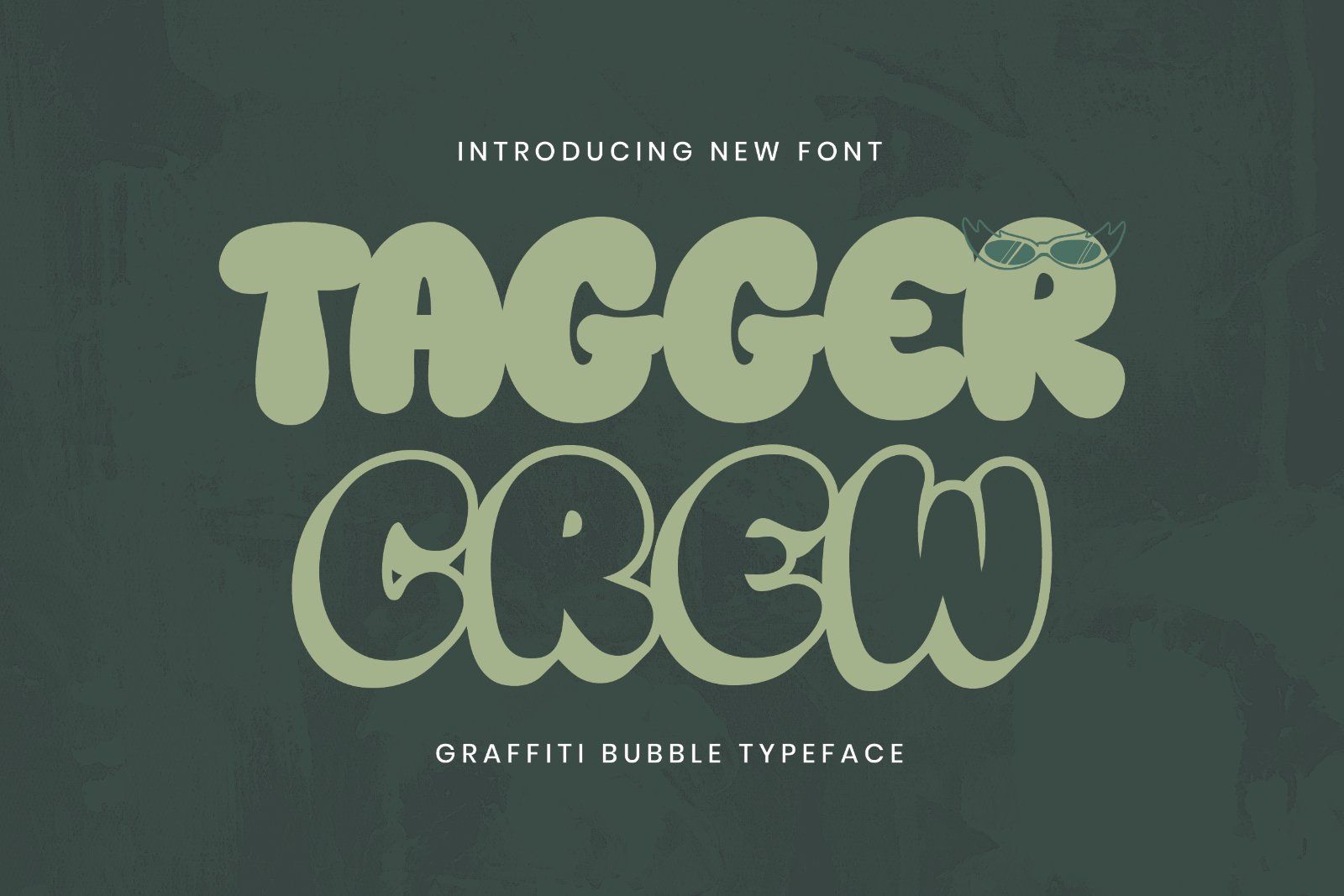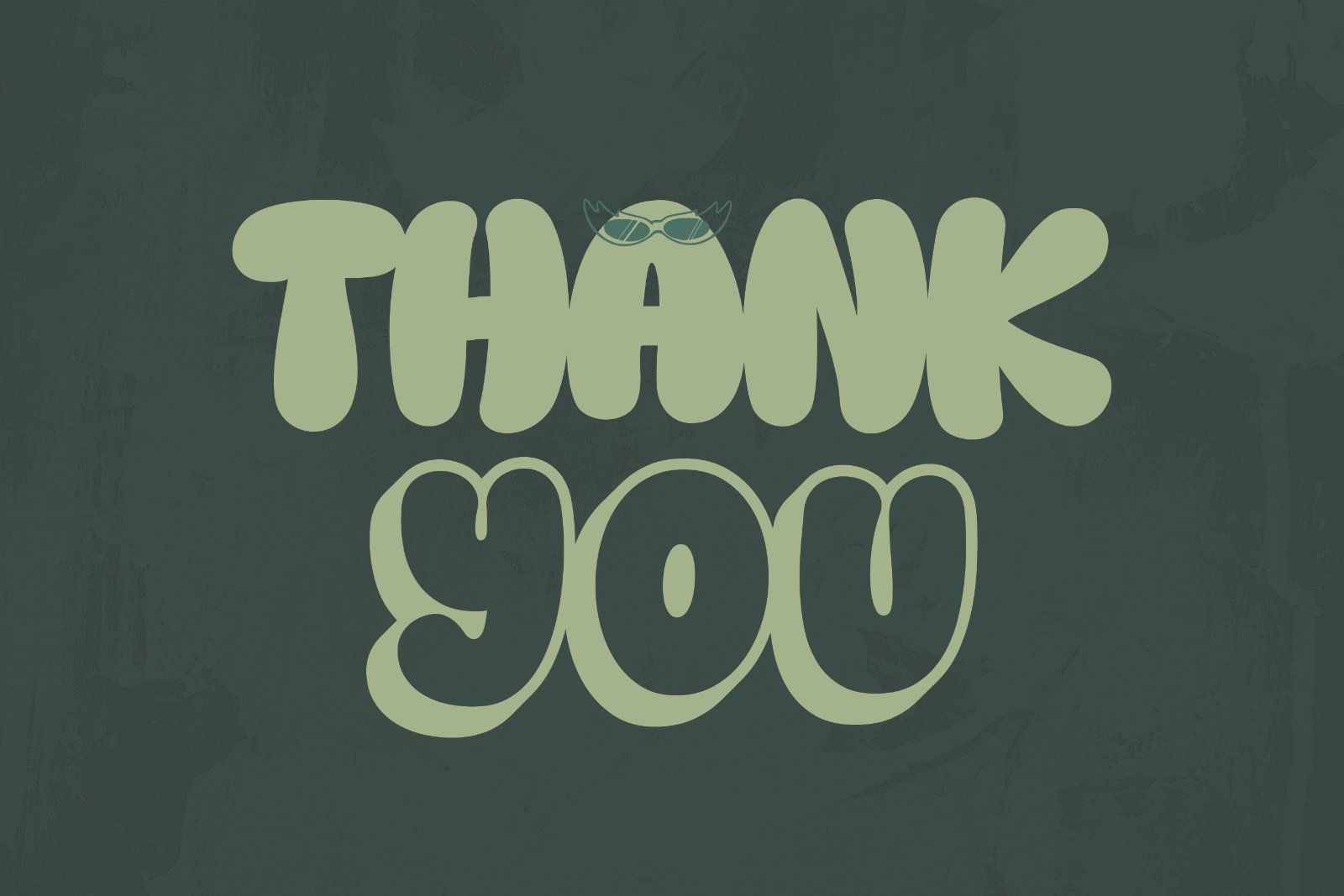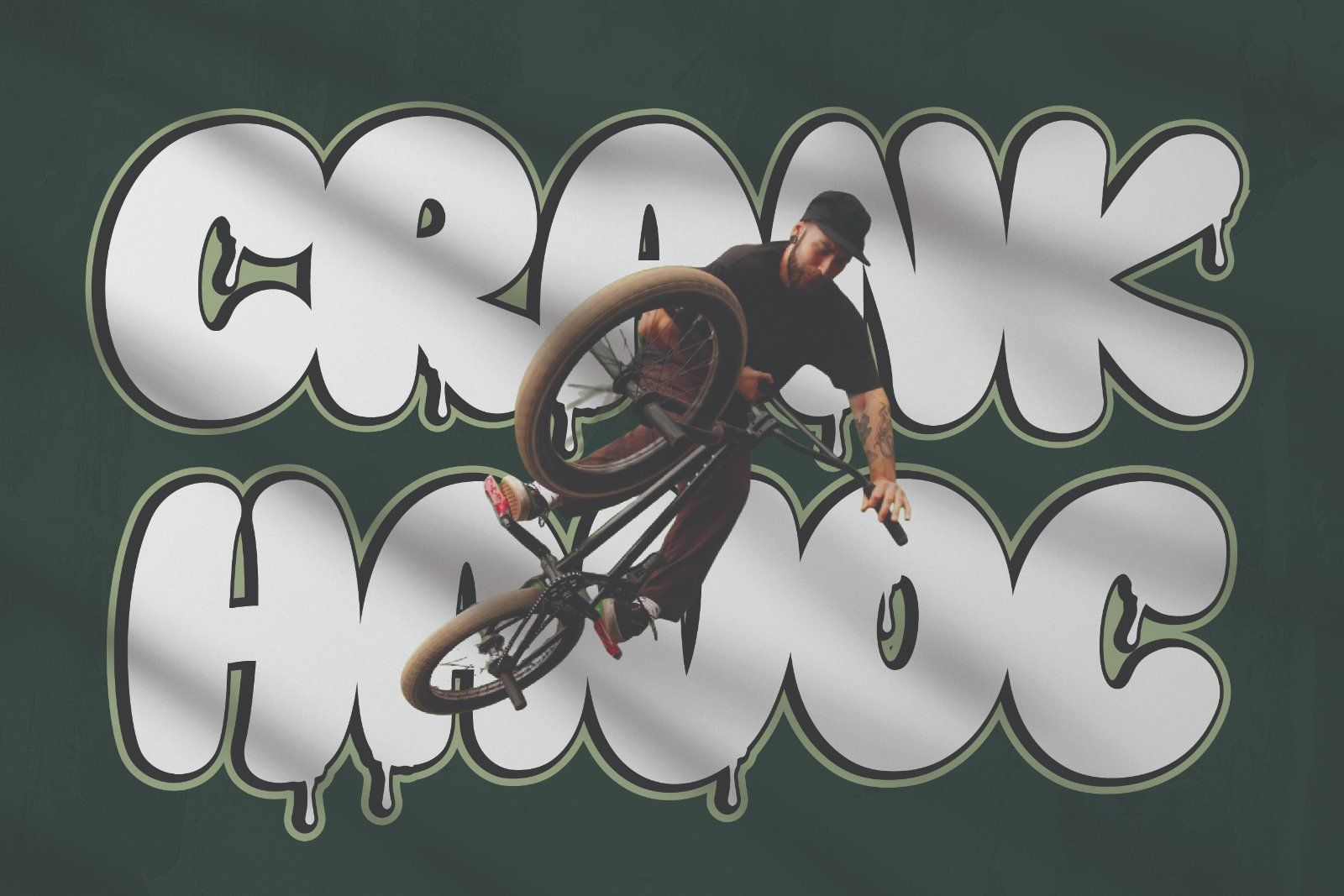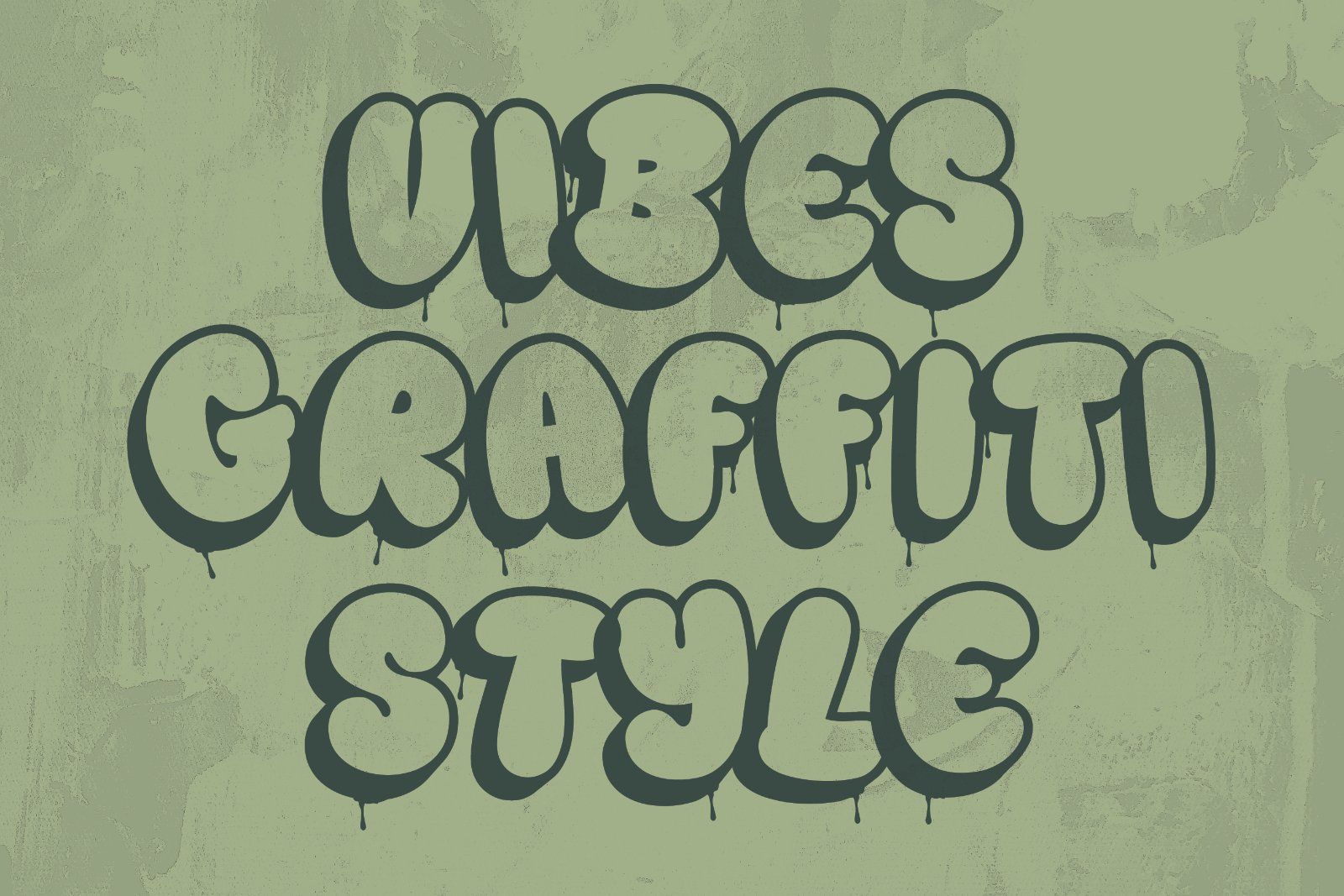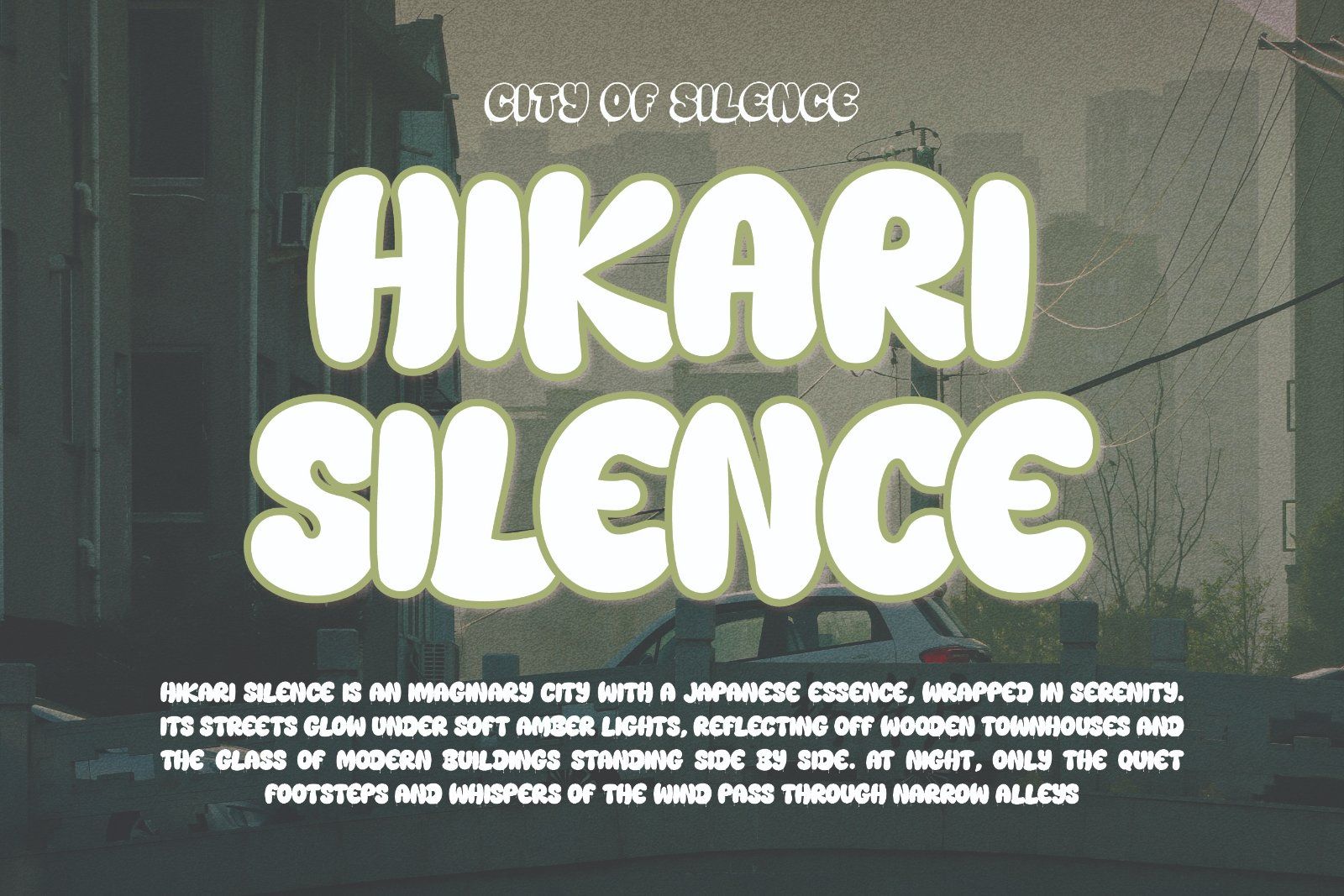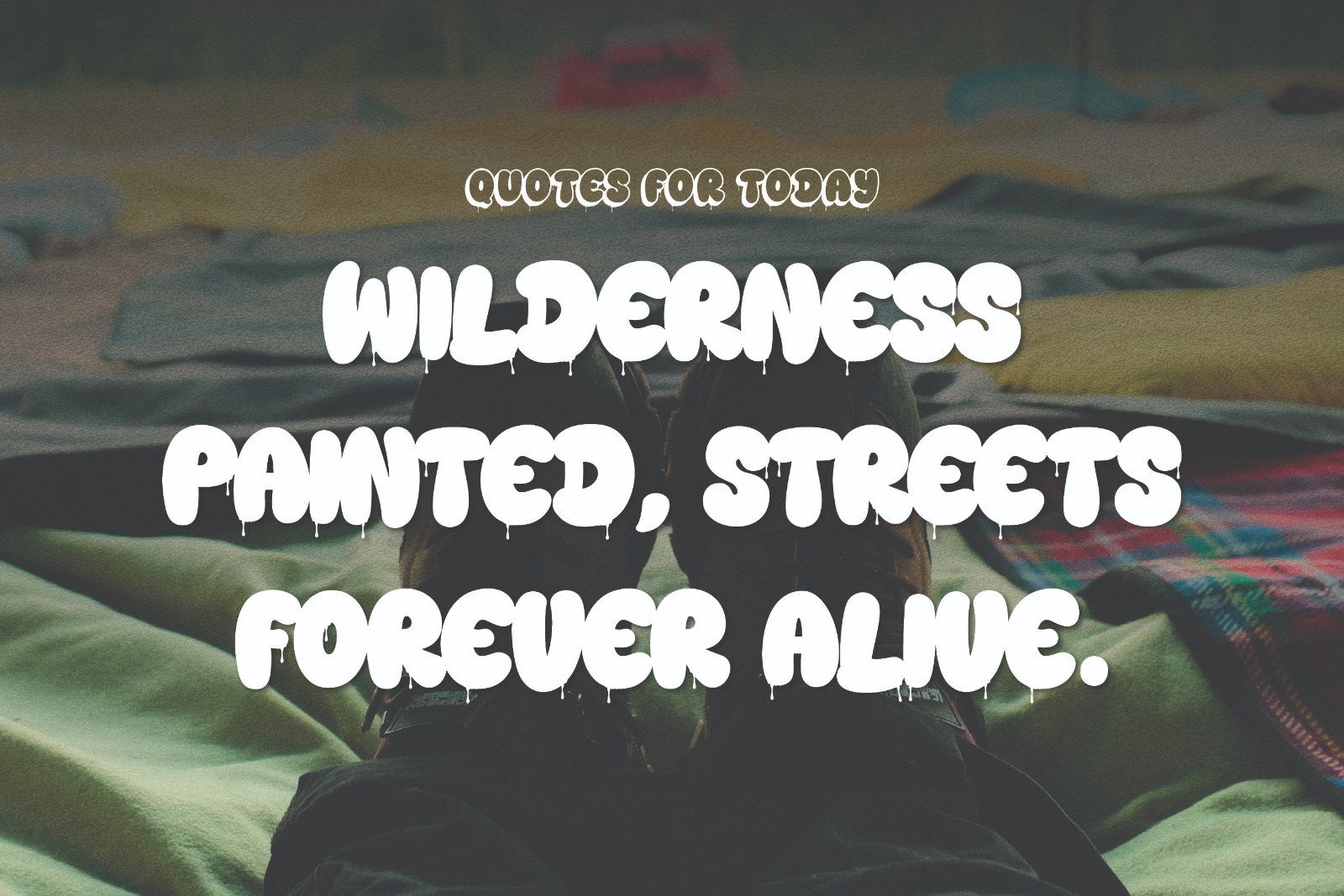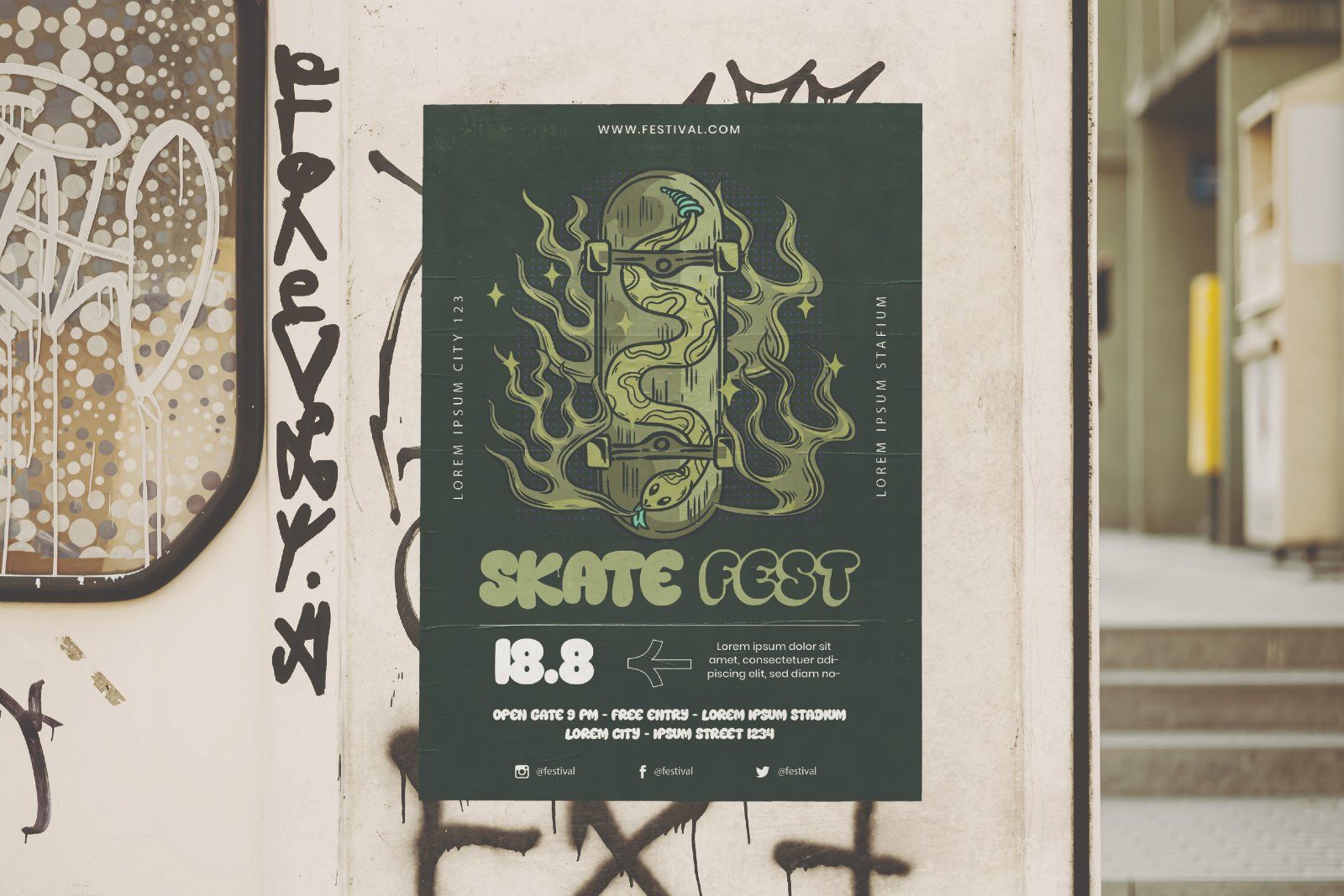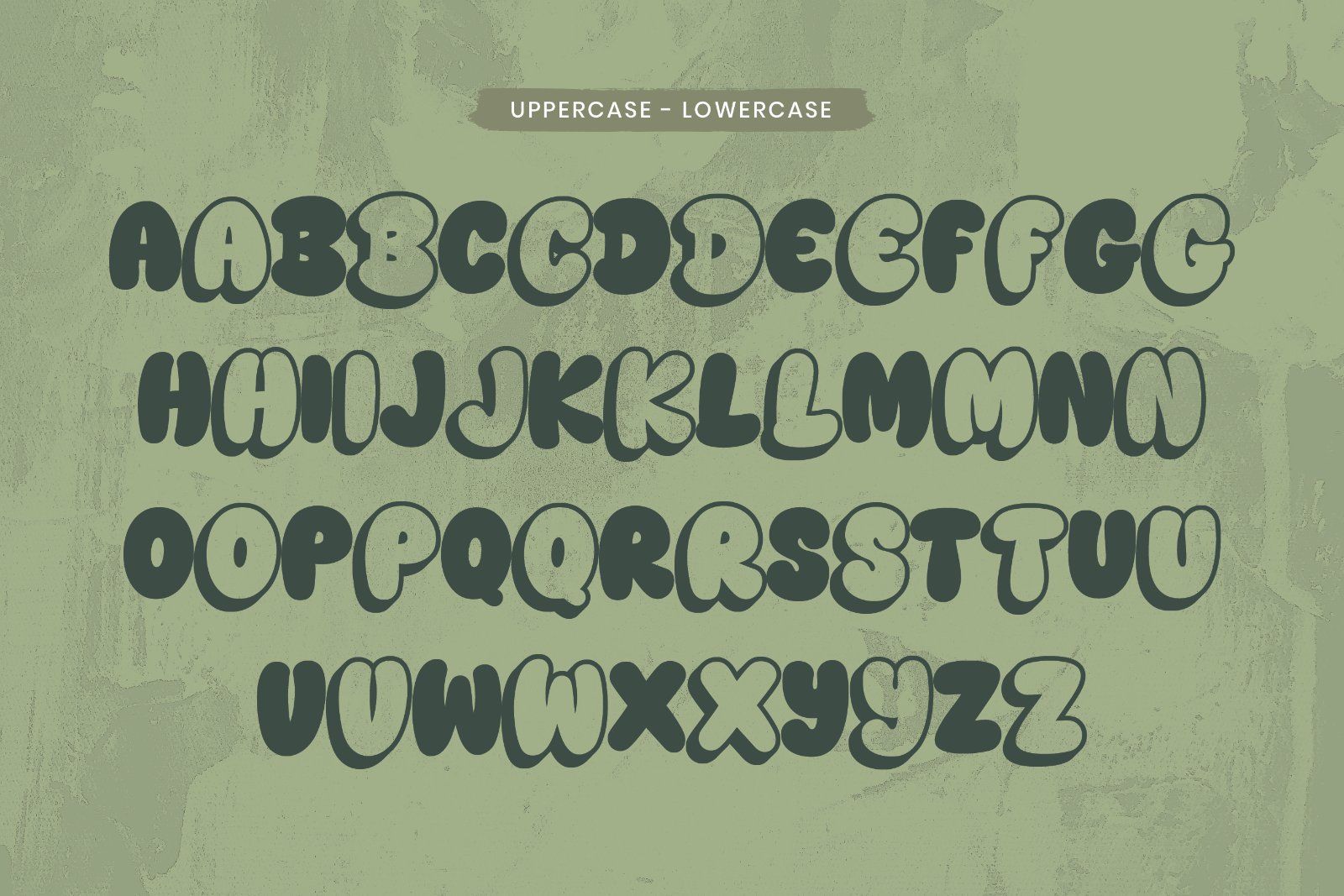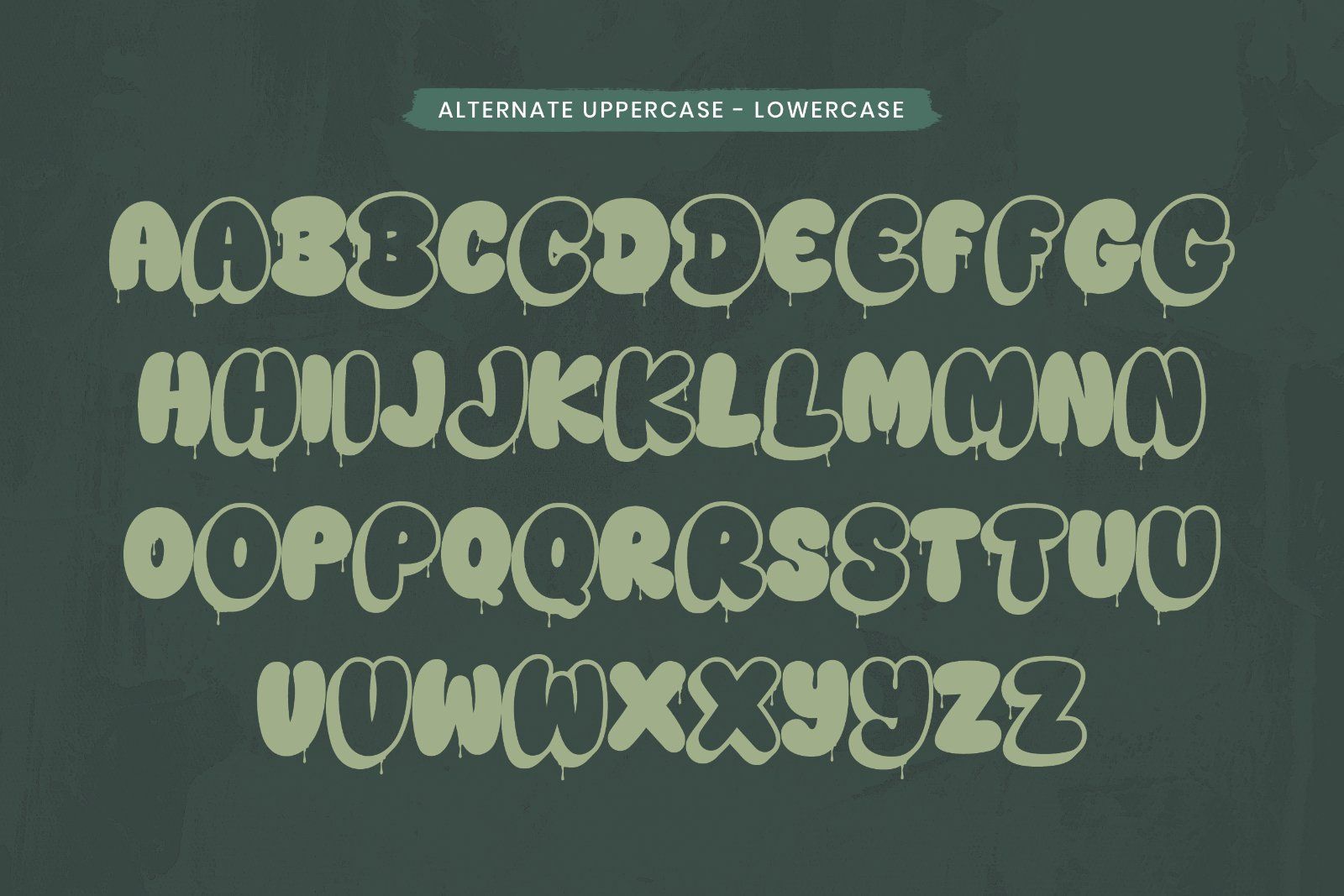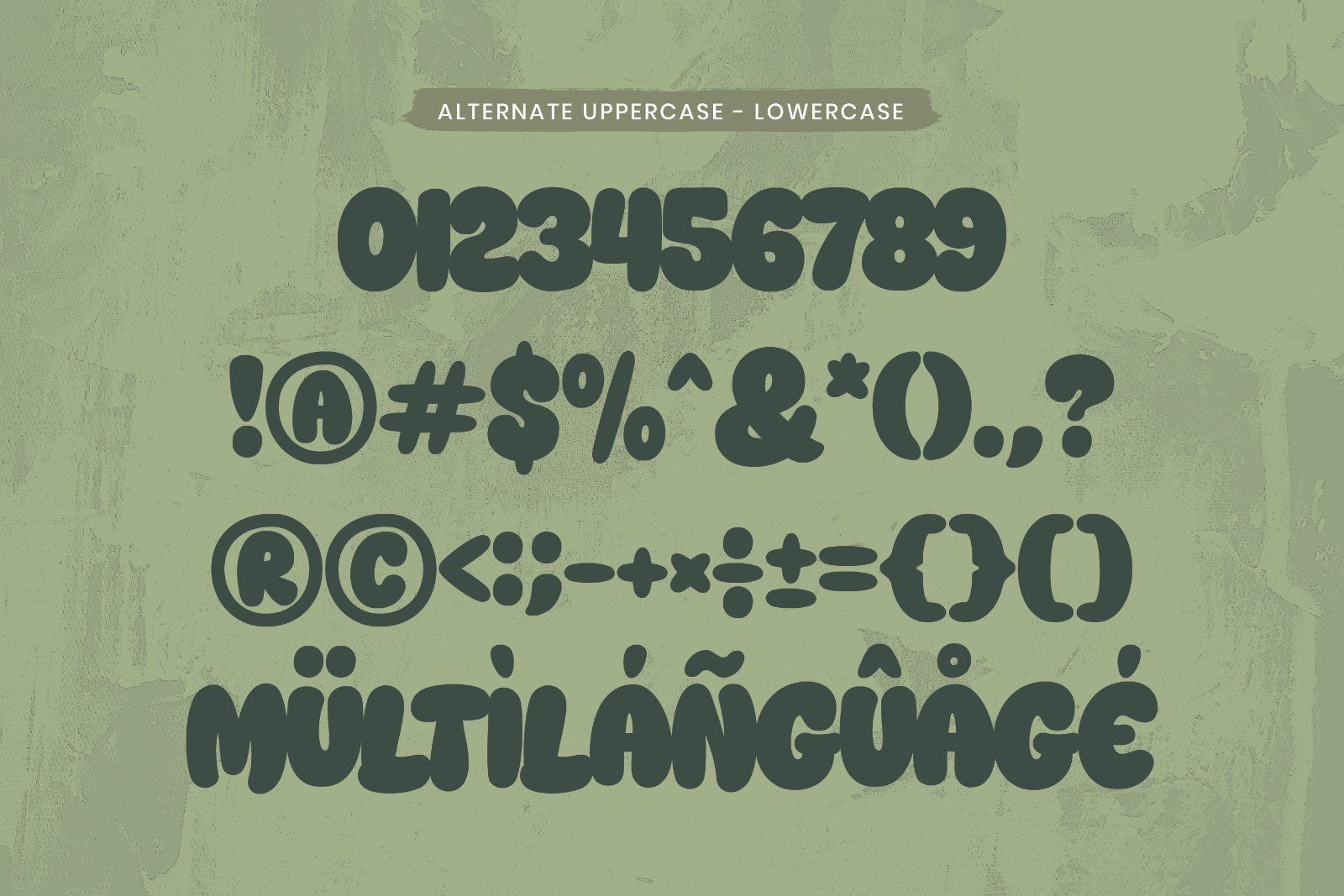
Tagger Crew is a bold and playful graffiti bubble font that brings urban vibes to your design. With its rounded edges, chunky shapes, and street-inspired character, this typeface is perfect for projects that need a youthful, rebellious, and energetic look. Whether for posters, album covers, skate culture branding, streetwear designs, or urban digital content, Tagger Crew adds a punch of attitude and style.
• Uppercase alphabet A-Z
• Lowercase alphabet a-z
• Numbers 0-9
• Some punctuation
• Some Alternates and Ligatures